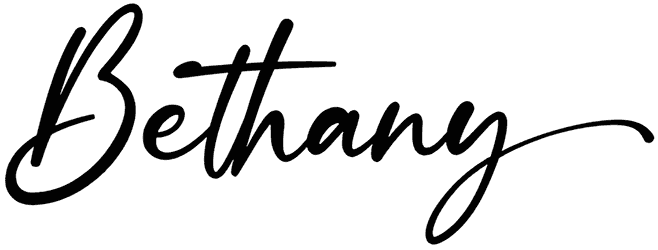
Sometimes, overusing formal fonts might lead to some difficulties and losing the audience; on this occasion, it would be better to consider a dreamy script font, such as Bethany, as a plan B.
Since this handwritten font comes with angular and rounded characters, it can help your book covers, movie posters, merchandise, editorial projects, or product packaging look far more interesting to the customers. Also, it leads to a sense of dynamism, professionalism, and vitality.